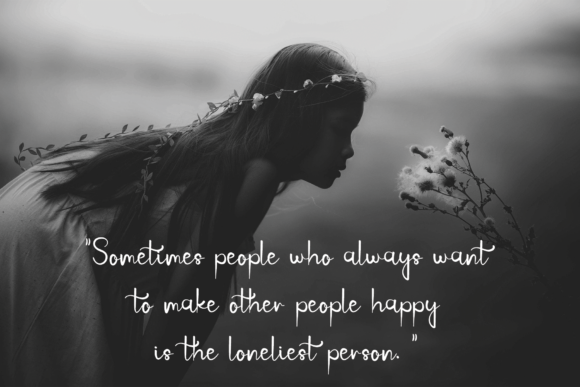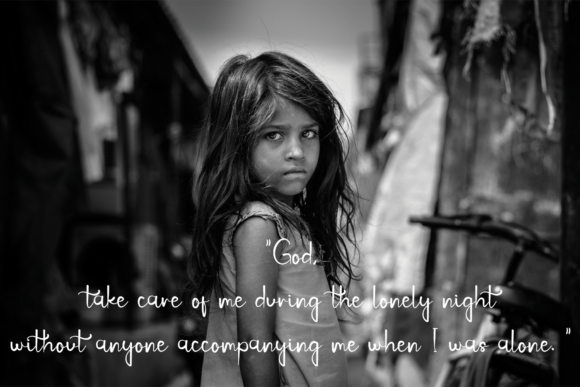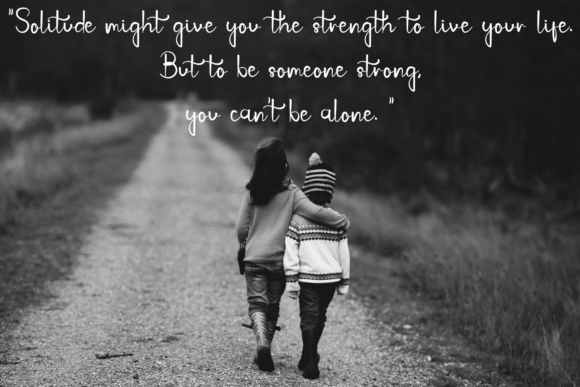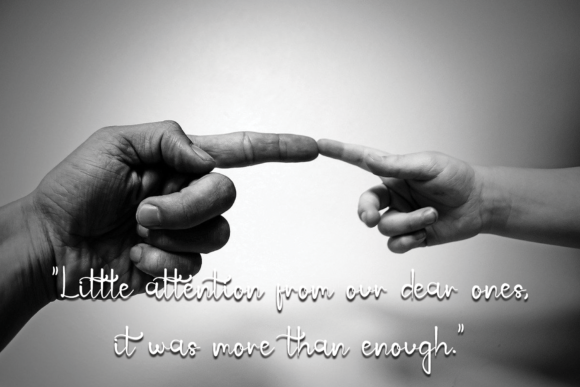
About Time for Shelly Font
Time for Shelly is a charming and graceful script font that exudes sweetness, balance, and flow. With its expert design, this font will elevate your creations to new heights and add a touch of enchantment to any project.
The smooth and harmonious letterforms of Time for Shelly make it a truly captivating choice for a wide range of ideas. Whether you’re designing wedding invitations, branding materials, quotes, or any other creative endeavor, this font will bring a touch of elegance and beauty to your work.
The careful attention to detail in Time for Shelly ensures that each letter is perfectly balanced and visually appealing. Its flowing curves and graceful strokes create a sense of movement and fluidity, adding a sense of sophistication to your designs.
No matter the context, Time for Shelly will enhance your creations and make them truly stand out. Its versatility allows it to shine in various applications, from print to digital media. You can trust this font to bring a touch of beauty and professionalism to your projects.
Choose Time for Shelly and let its sweet, well balanced, and flowing script font transform your creations into stunning works of art. You’ll be amazed at the impact it has on your designs and the positive response it elicits from viewers.